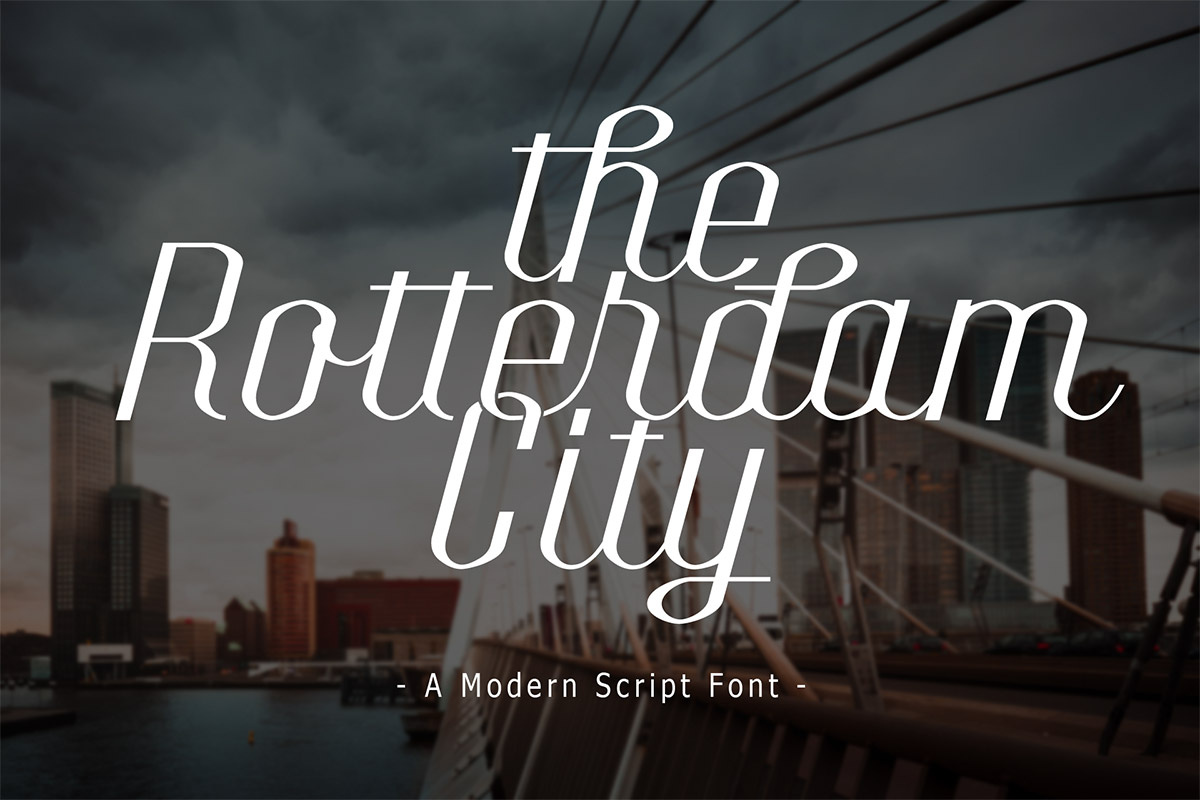
Free Rotterdam City Script Font
Free Rotterdam City Script Font is a cool and charming handwritten font that will add an authentic vibe to any design project! It contains uppercase, lowercase and ligatures. Rotterdam is great for posters, apparel, headline, logotype, business card, product packaging, brochure, flyer, clothing, stationery, shirt, titles, magazines, and much more.